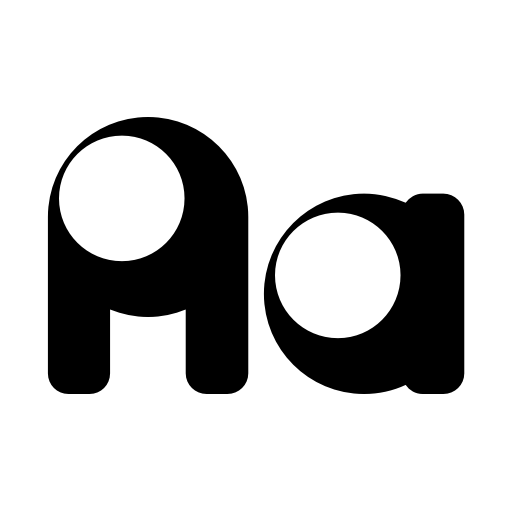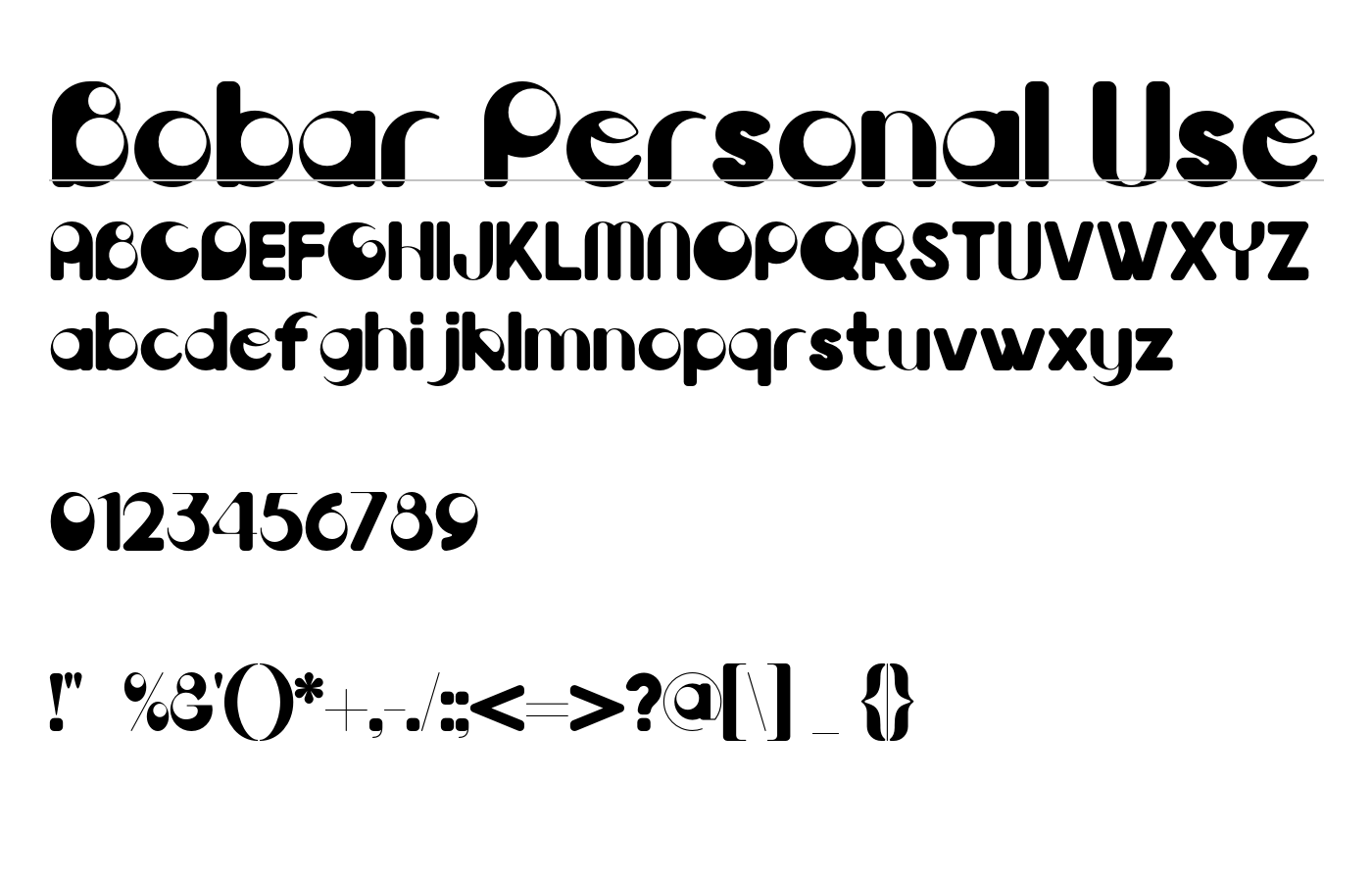
Bobar Personal Use is a bold, geometric sans serif font with a playful and modern feel, characterized by its thick strokes, high contrast, and distinctive circular cutouts within many characters. Its rounded shapes and unique letterforms give it a quirky and artistic personality, making it ideal for eye-catching logos, headings, and creative branding. This font works best where a standout, contemporary style is needed to convey fun and originality.
Bobar Personal Use Font
About Bobar Personal Use Font
| Font family | Bobar Personal Use Font |
| Designer | Martin Katibi |